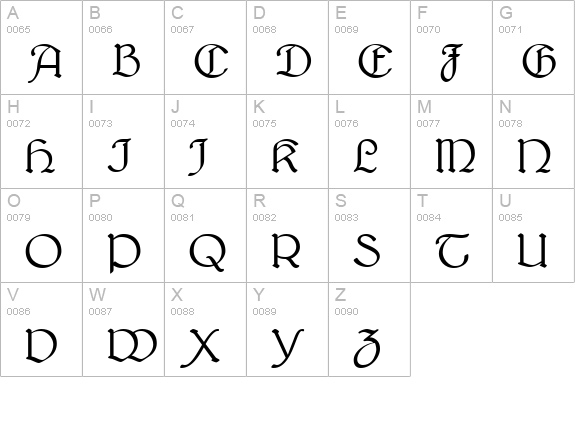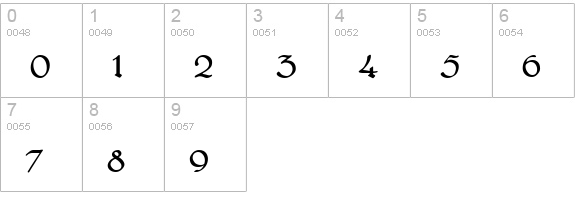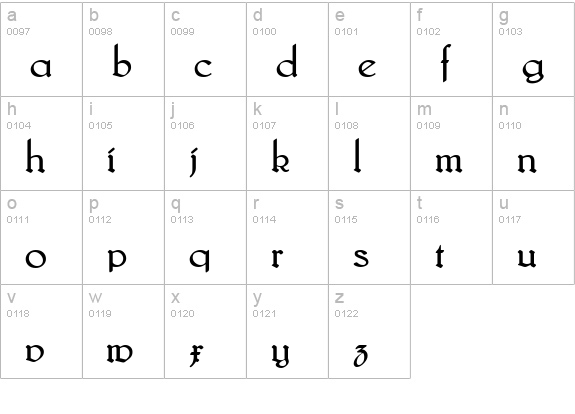
Bridgnorth font is a modern and elegant typeface that exudes sophistication and style. Its sleek lines and classic design make it perfect for a wide range of design projects, from branding to editorial layouts. With its timeless appeal, Bridgnorth font adds a touch of class to any design it graces. The best part? Bridgnorth font is available for free download at FontsMarket.com. This means you can easily access this beautiful font and use it in your projects without any cost. Don't miss out on the opportunity to enhance your designs with Bridgnorth font's charm and versatility. Download it today and elevate your design game to the next level.